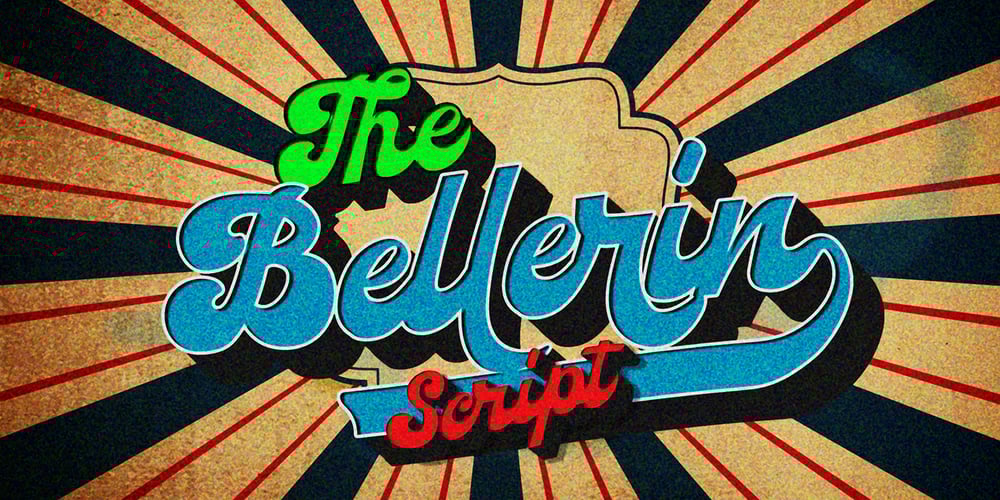
Bellerin Font Family was designed by Muhammad Afif Ersya and published by Mevstory Studio. Bellerin contains 1 styles and family package options. Bellerin is one of my fonts based on a hand lettering project in 2020. I was very inspired by the famous retro typography designs form the late 60’s till the 70’s. So you won’t need extra efforts for create an extrude effect for this font. This mean it will saves your time.